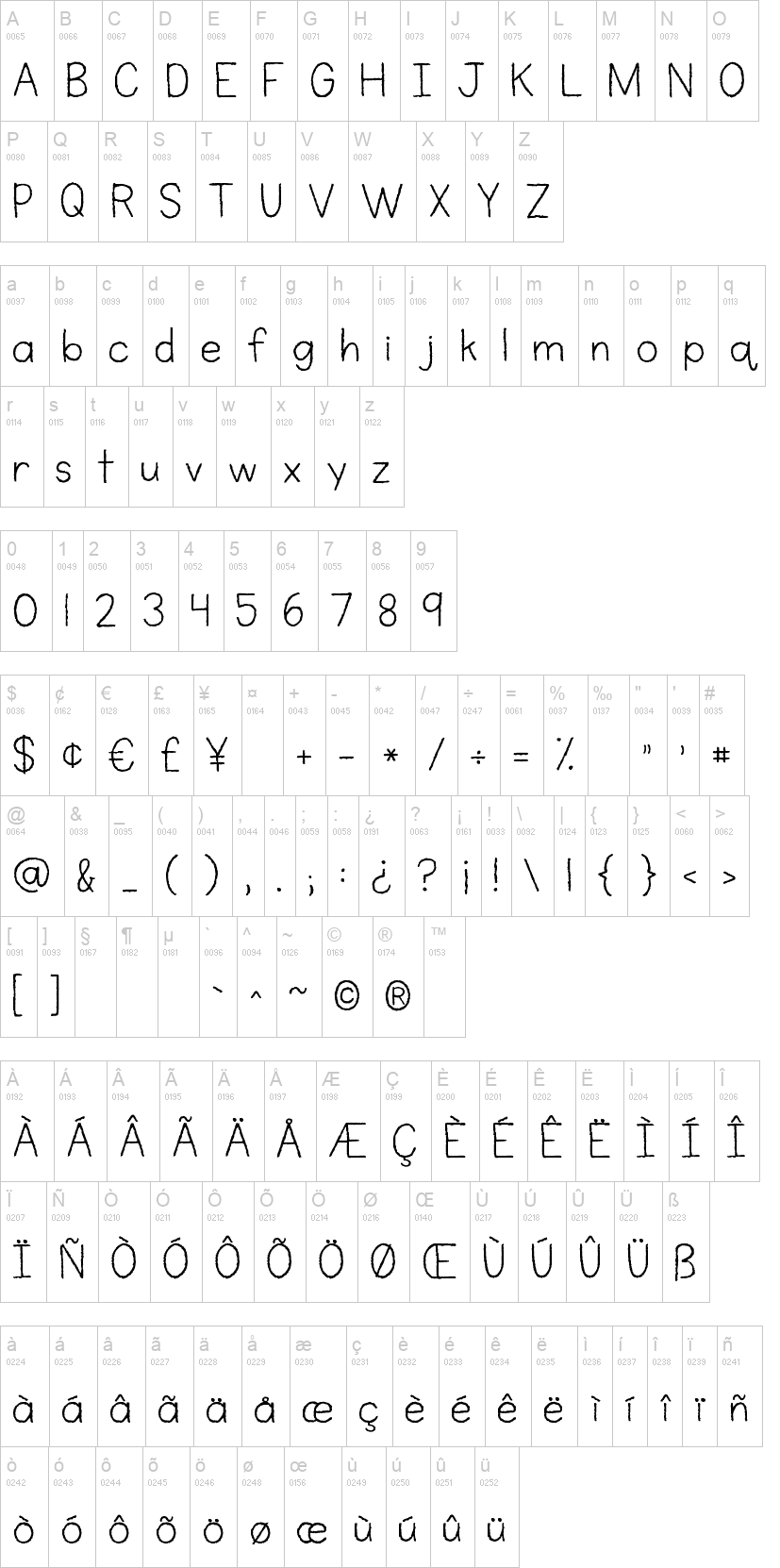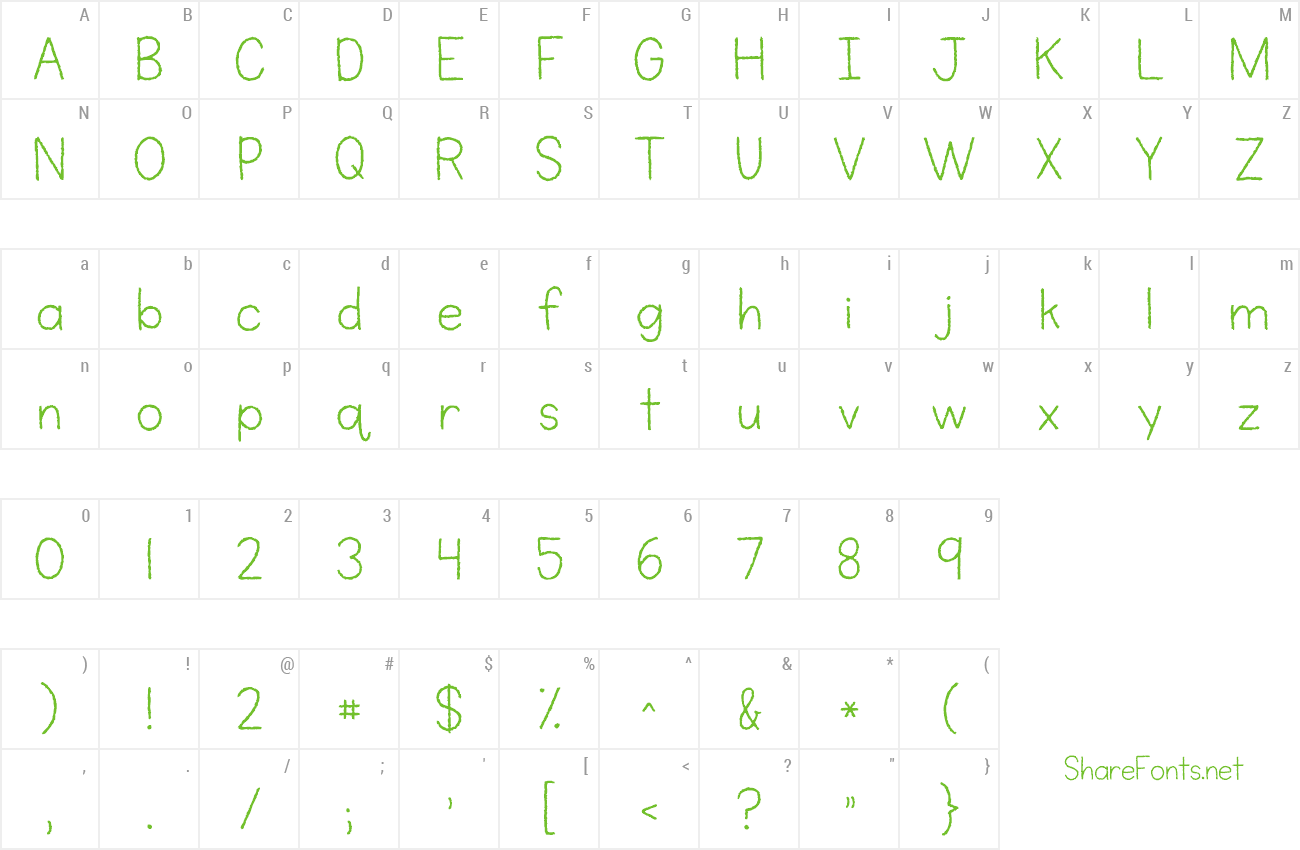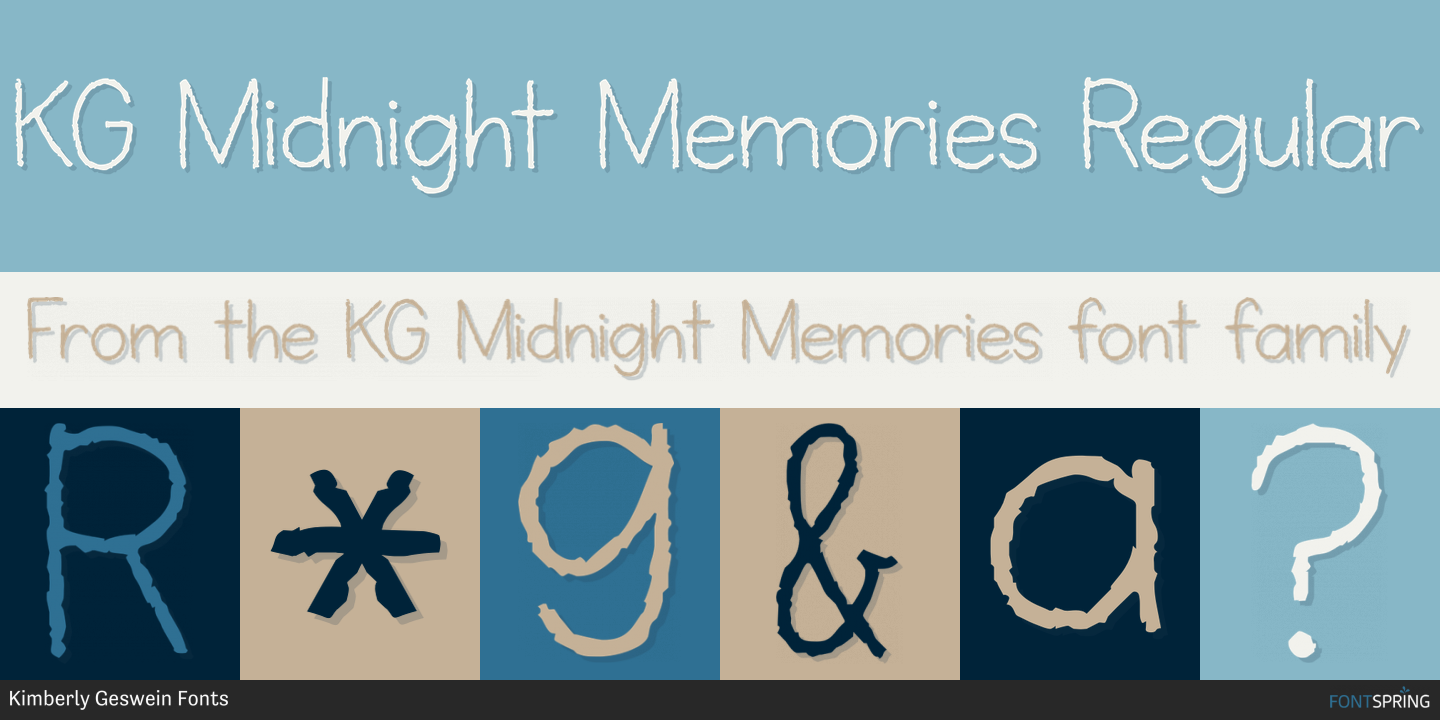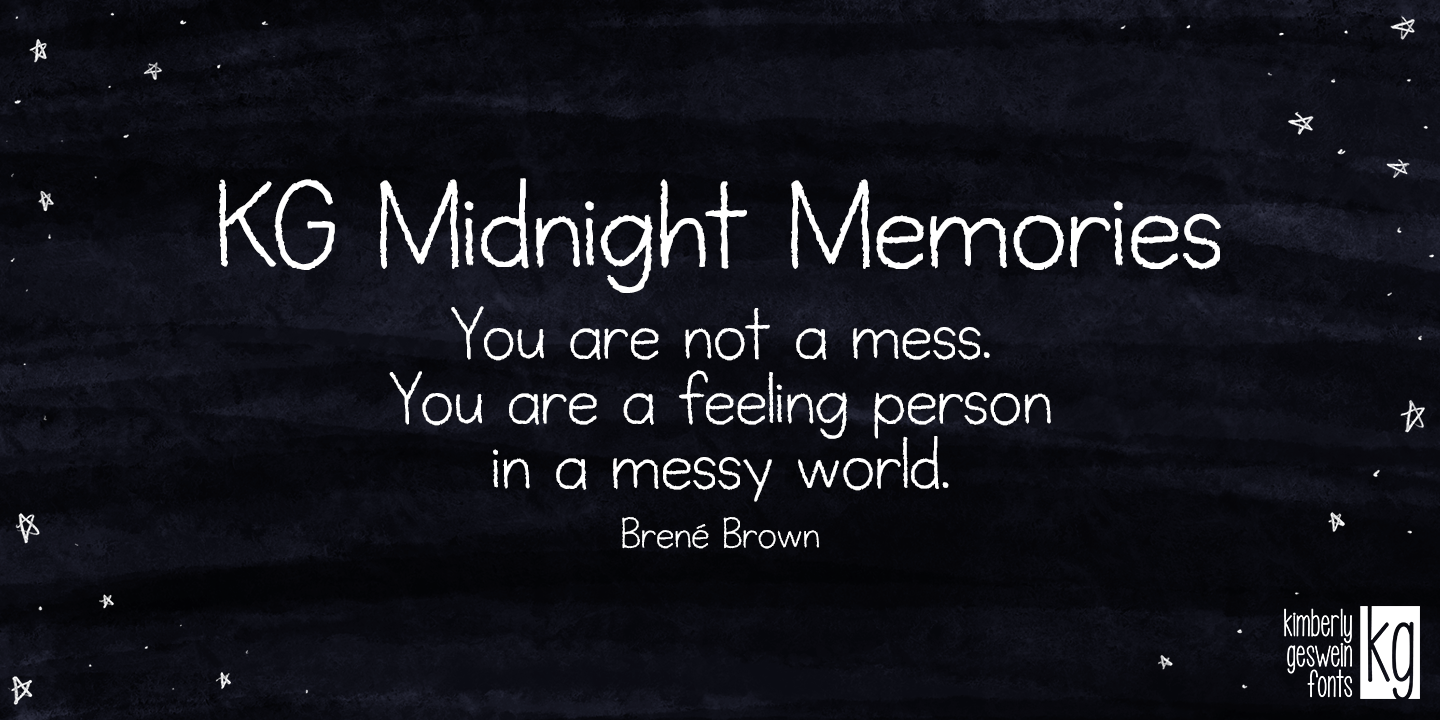
Kg Midnight Memories Font
Kg Midnight Memories Font - Kg midnight memories is a handwritten font created by kimberly geswein in 2021. Download kg midnight memories regular font. The typeface contains 1 file and supports 55 languages. Kg midnight memories regular by copyright [c] 2021 by kimberly geswein. Kg midnight memories is a font. Please license at kimberlygeswein.com for commercial use.